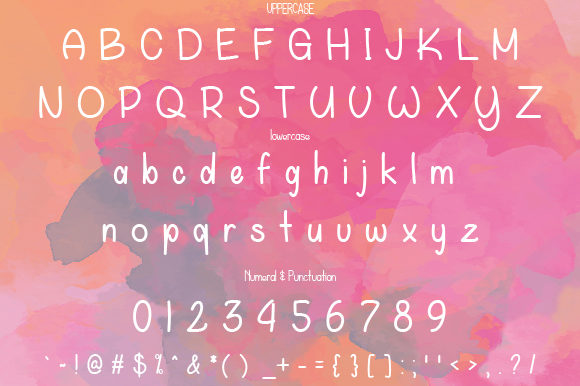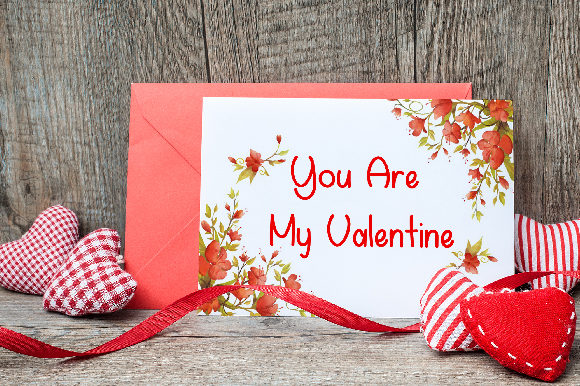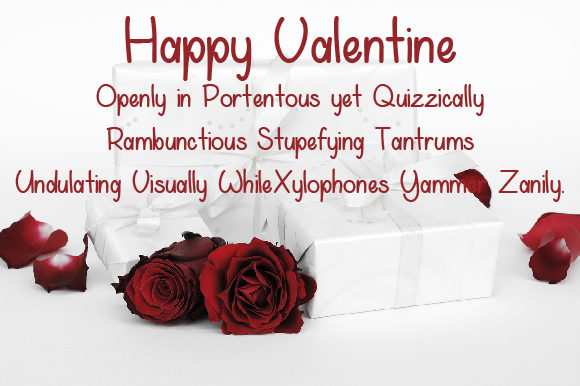
Darling Font
About Darling Font
The Darling is a beautiful handcrafted typeface. It has a fun and stylish feel which can be used for holiday and travel designs, headings, cards, logos, wedding invitations, t-shirts, and much more!